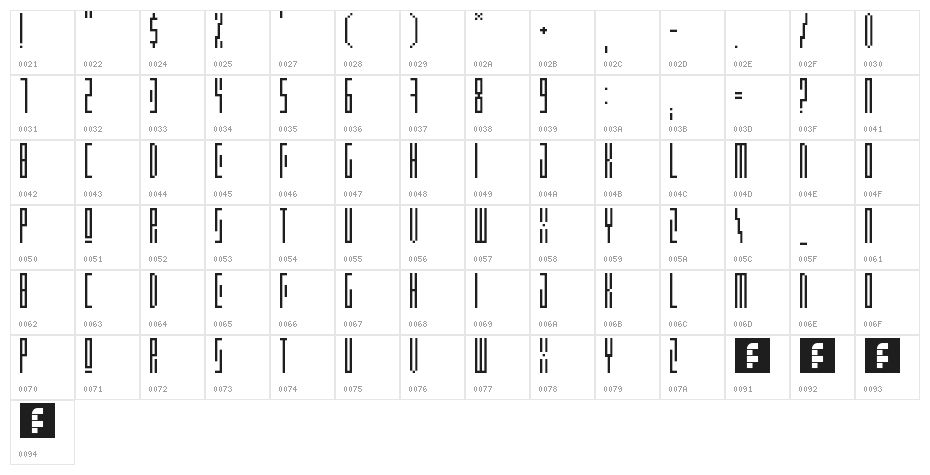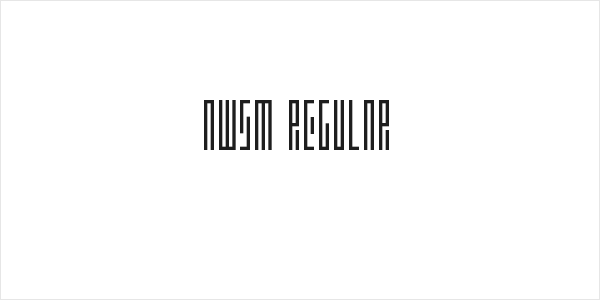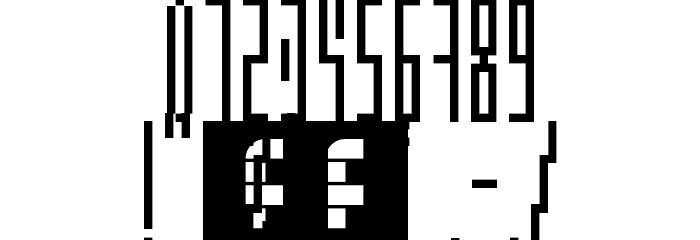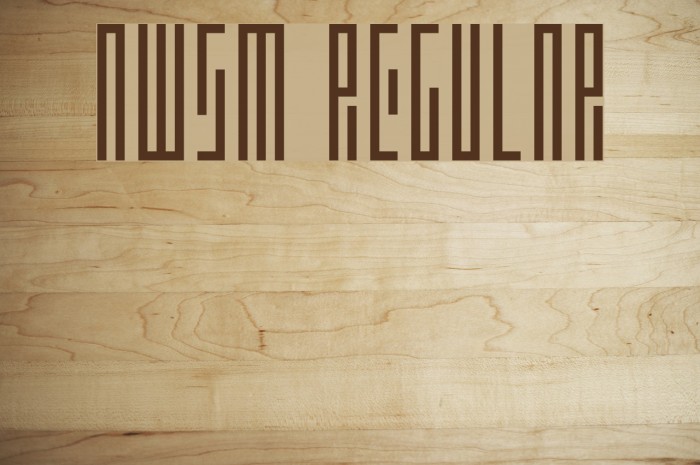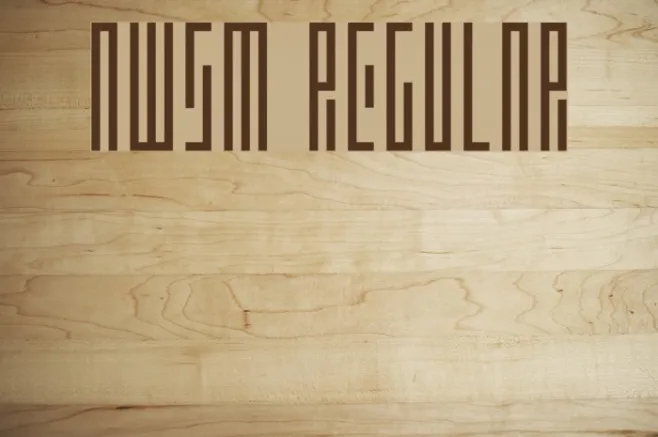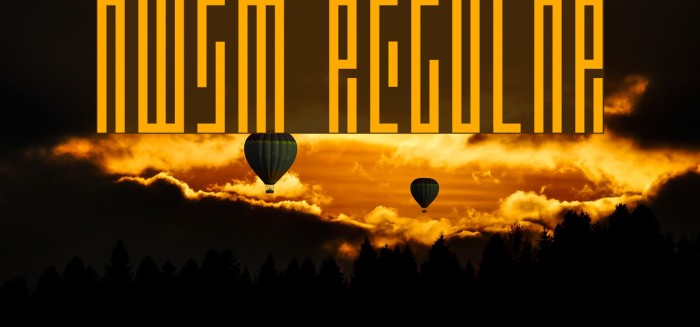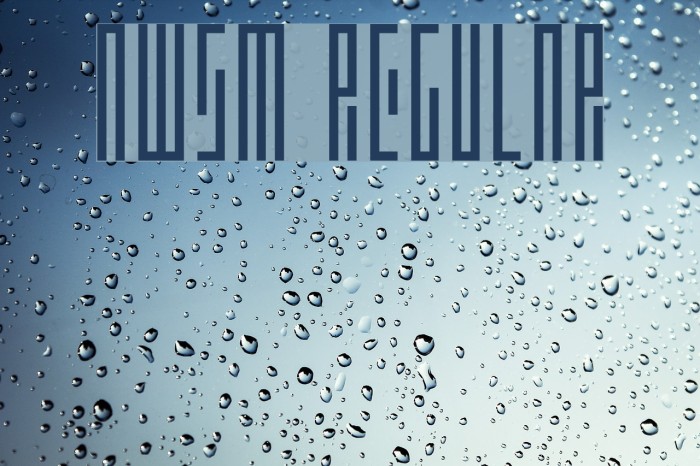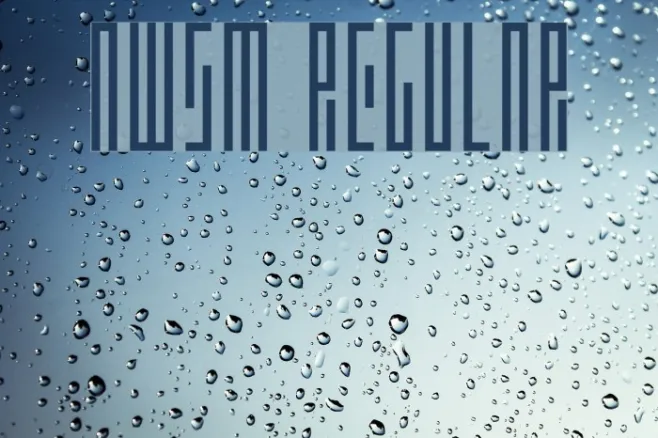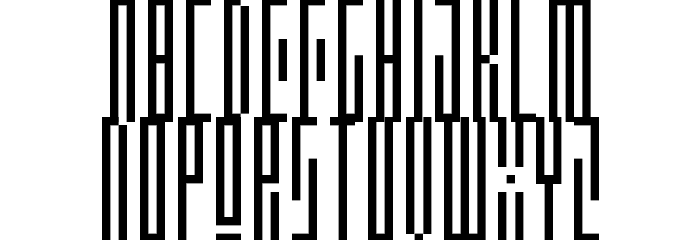
AWSM Regular Font
AWSM Regular Description
This font features a highly decorative and geometric style, characterized by its tall, narrow letterforms and consistent vertical alignment. The characters are composed of straight lines and sharp angles, creating a modern and futuristic appearance. The uppercase and lowercase letters maintain a uniform height, contributing to a cohesive and structured look. The numerals and special characters follow the same design principles, ensuring visual harmony across all elements. This font's unique aesthetic makes it stand out, ideal for projects that require a bold and distinctive typographic statement.